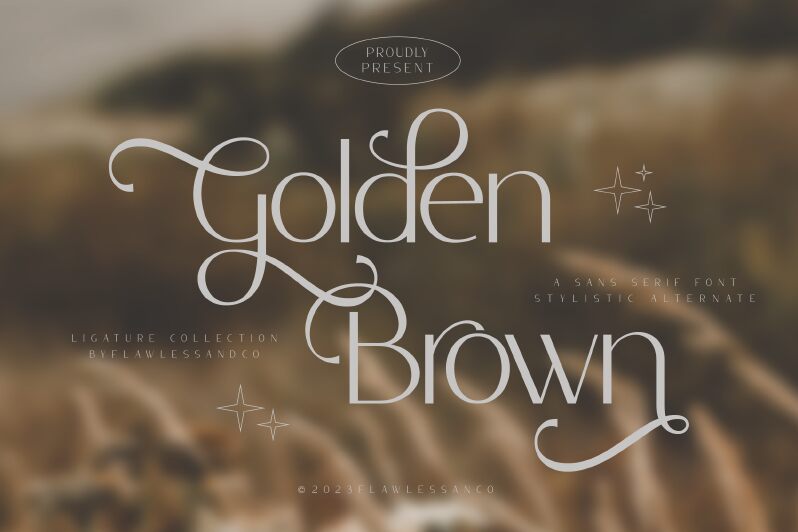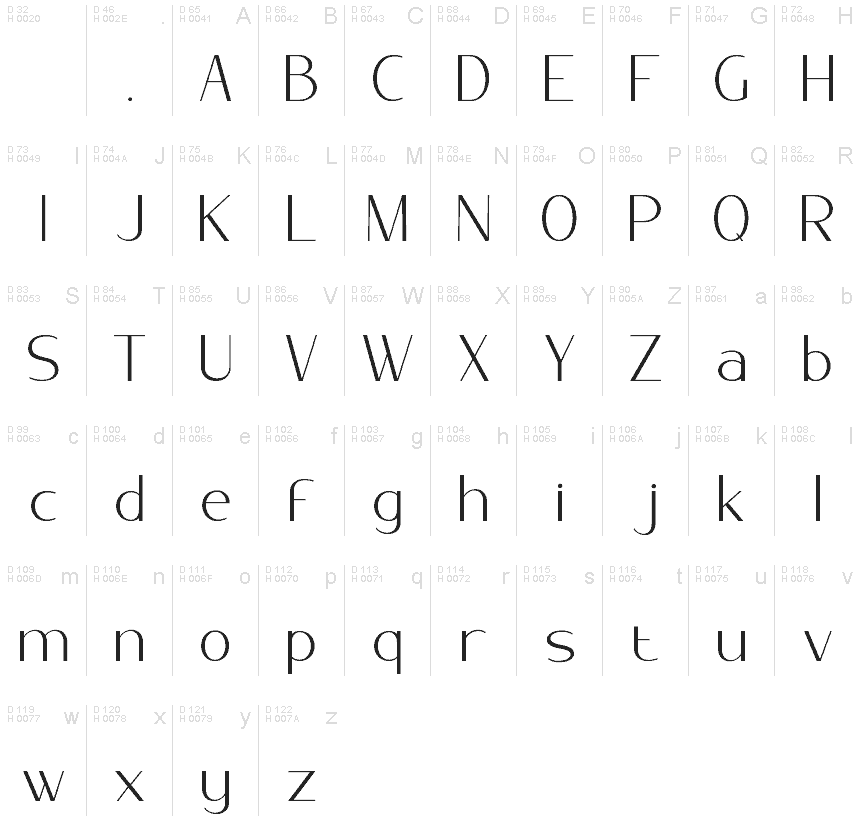
Golden Brown Regular
Golden Brown font by Achmad Yani is an elegant modern sans serif with a minimalist, sophisticated design. Its high contrast and subtle serif influences enhance the visual style, making it perfect for both branding and editorial purposes. The characters' contemporary styling ties the entire text together in a streamlined uniform look that offers excellent readability.